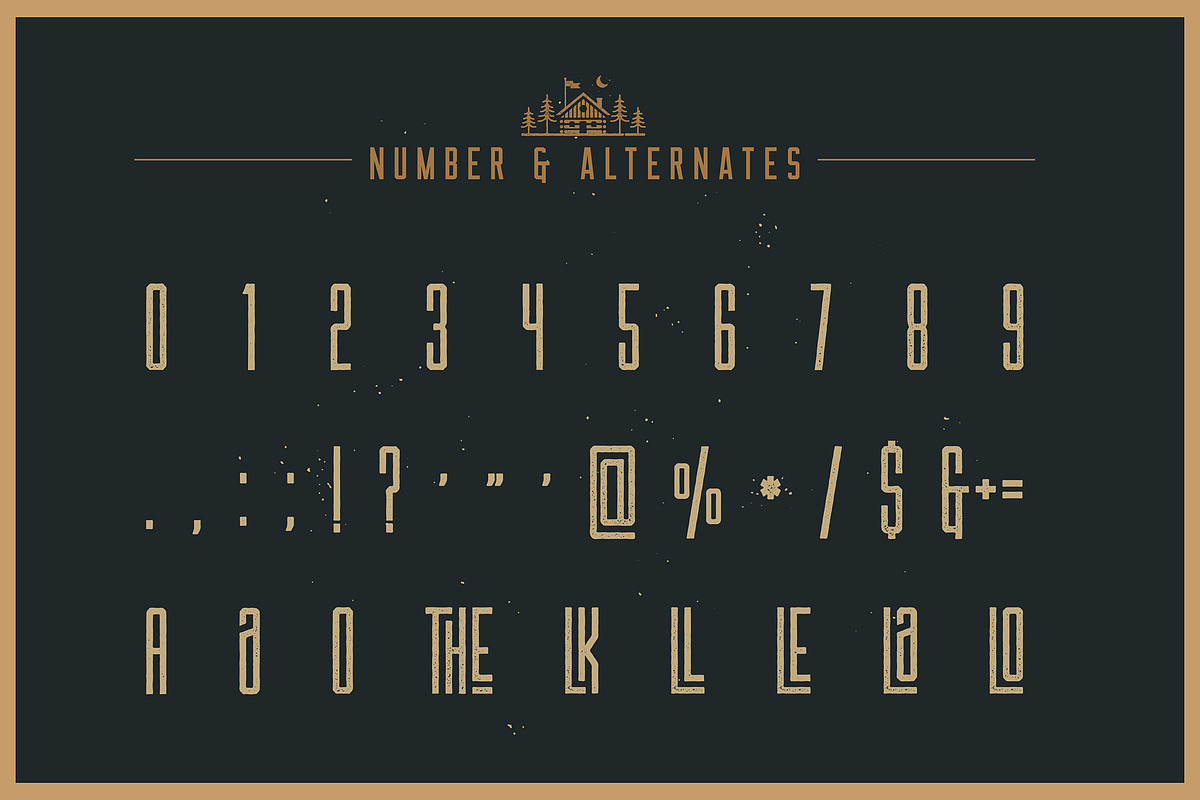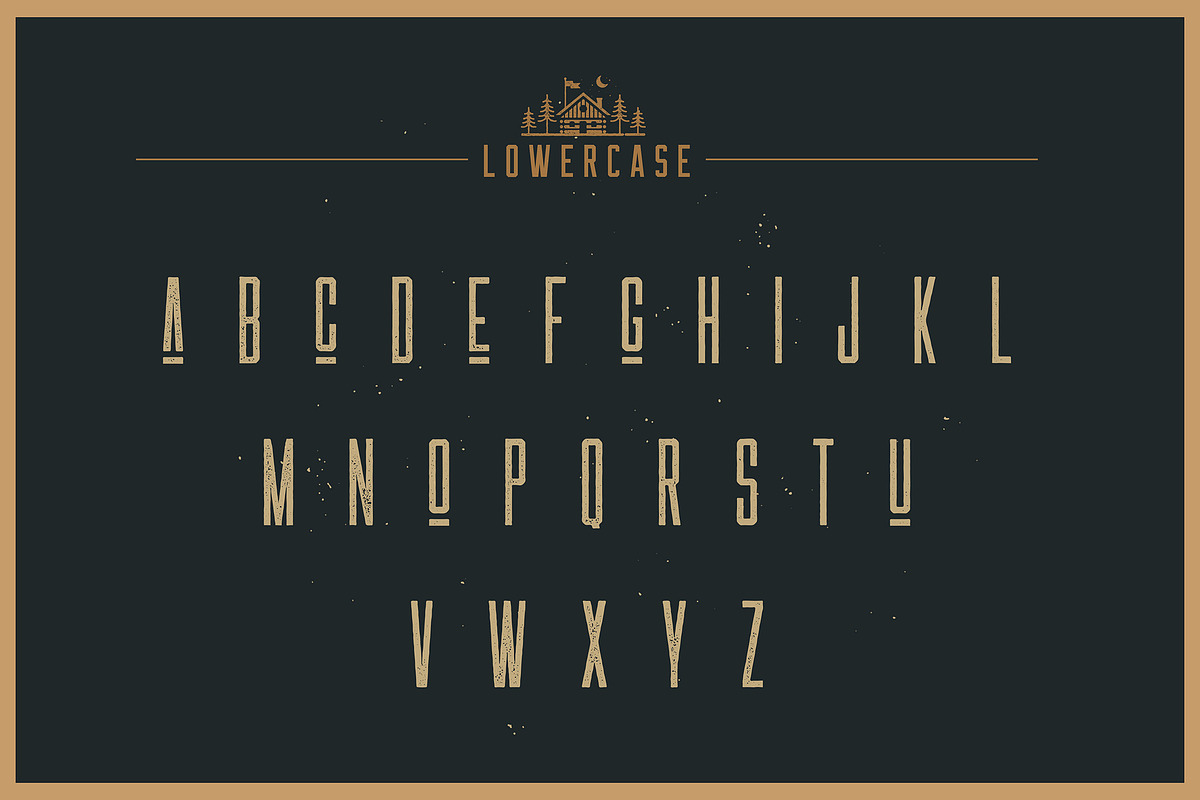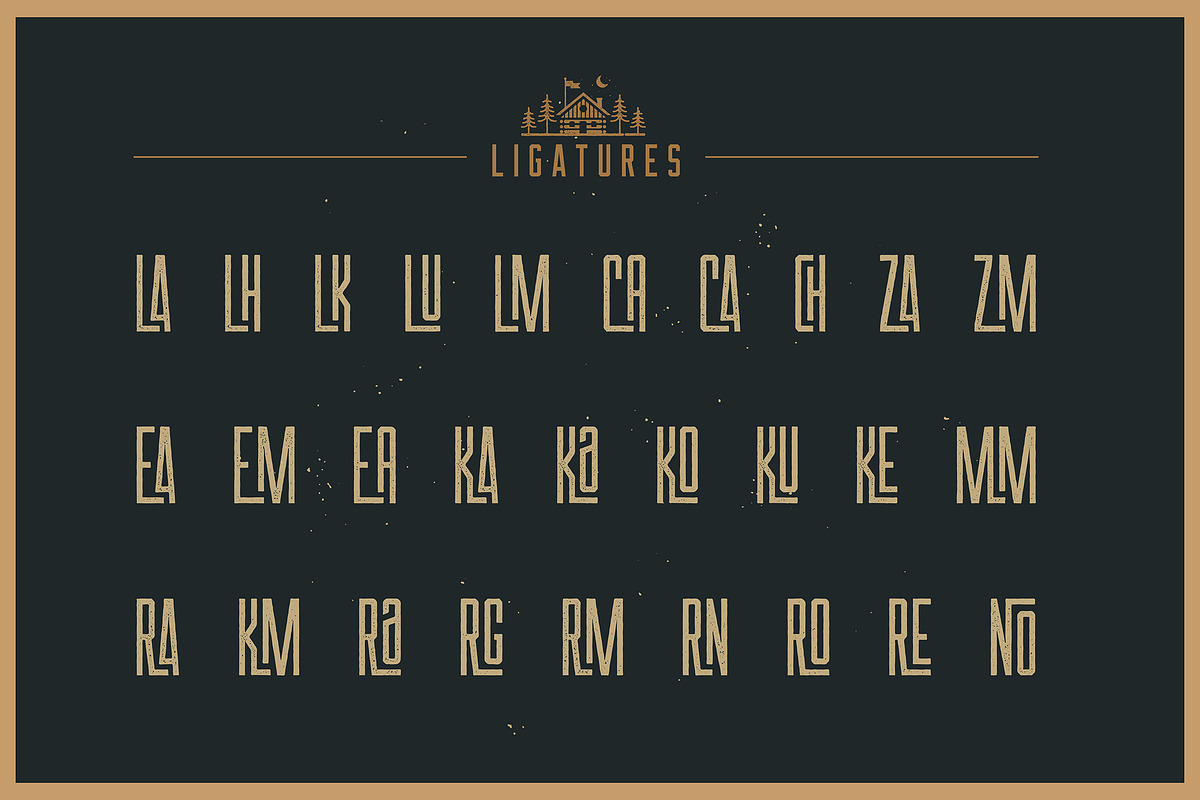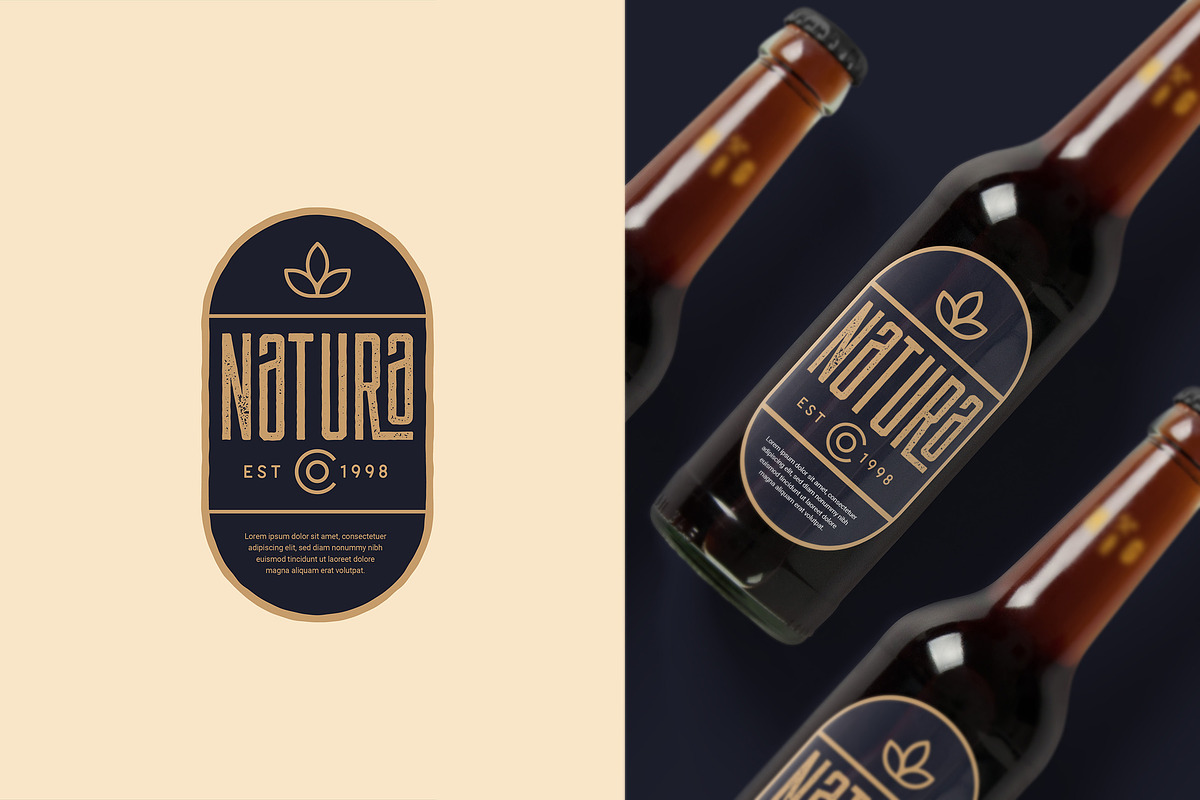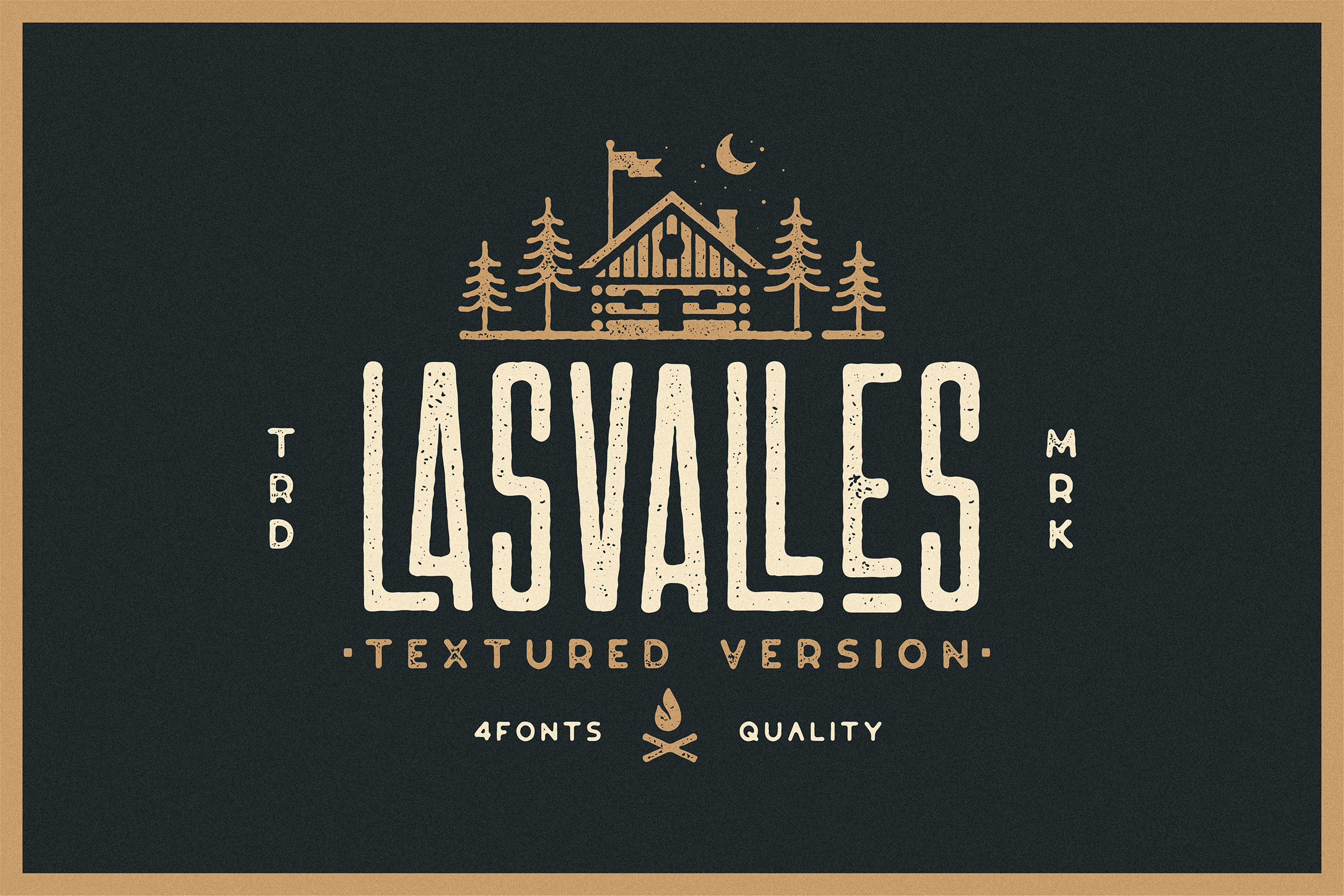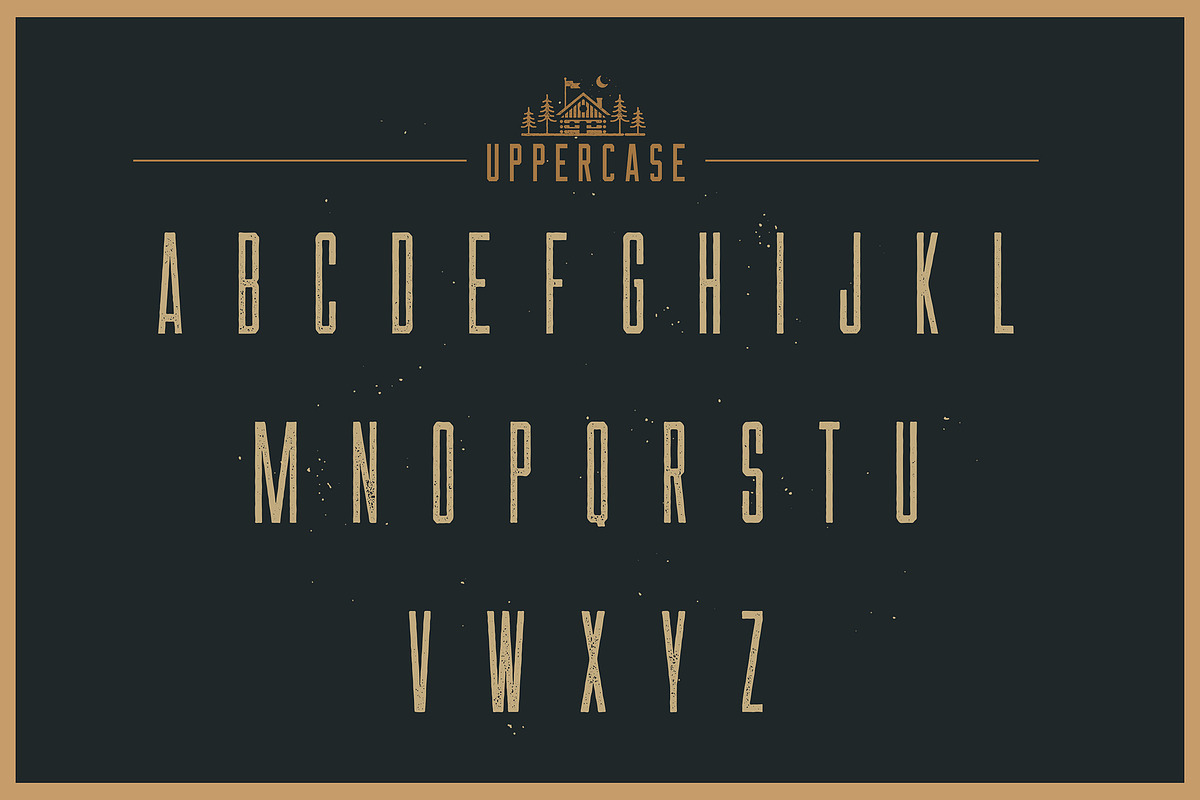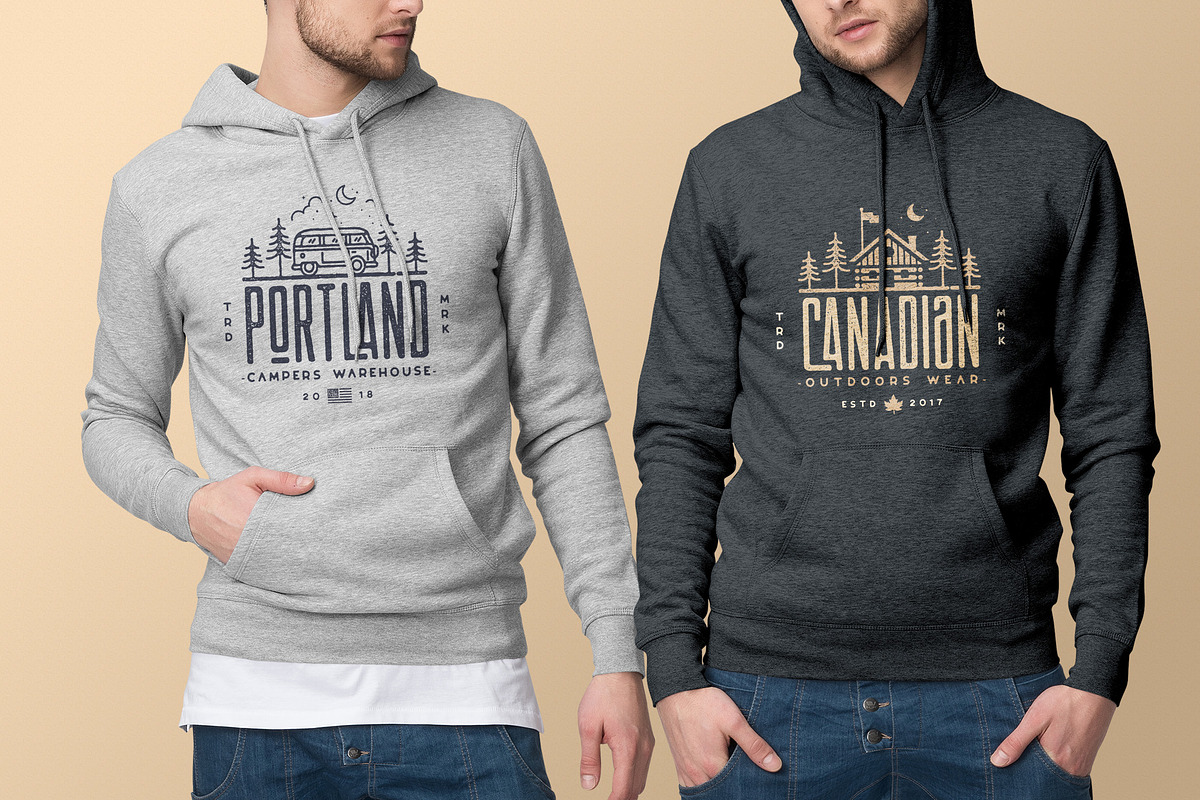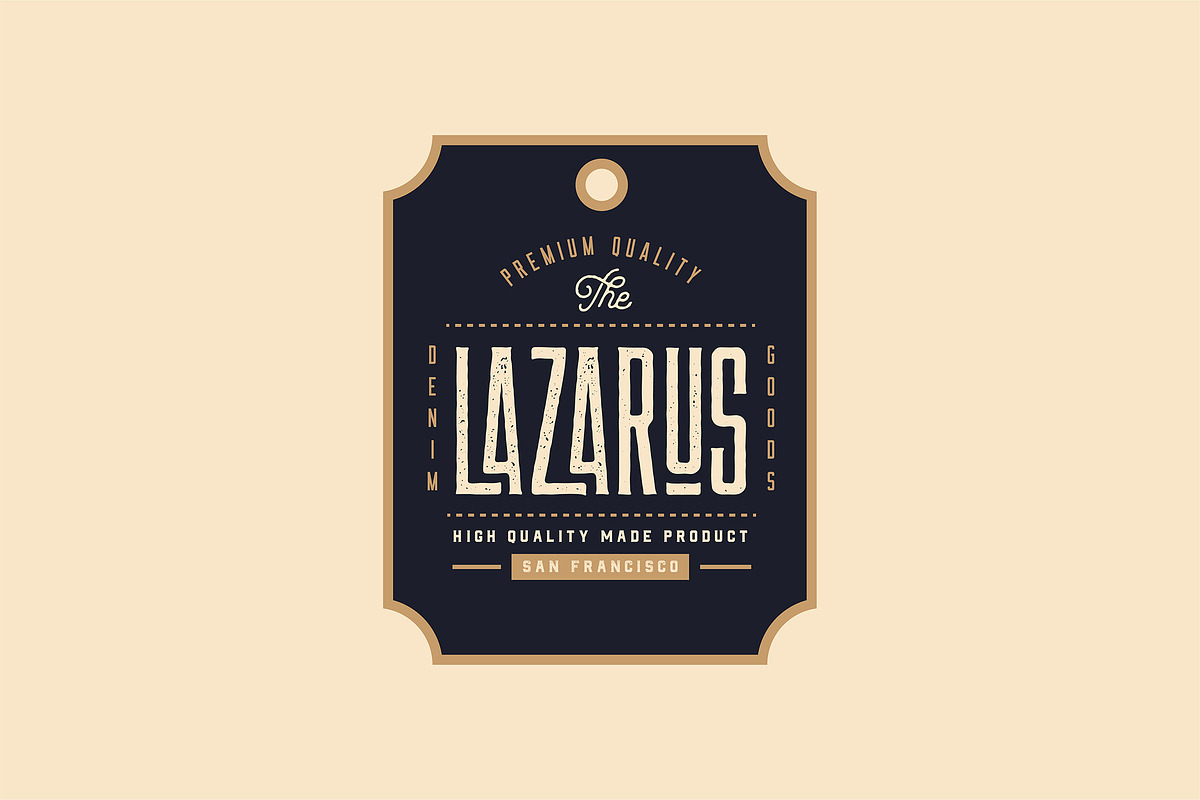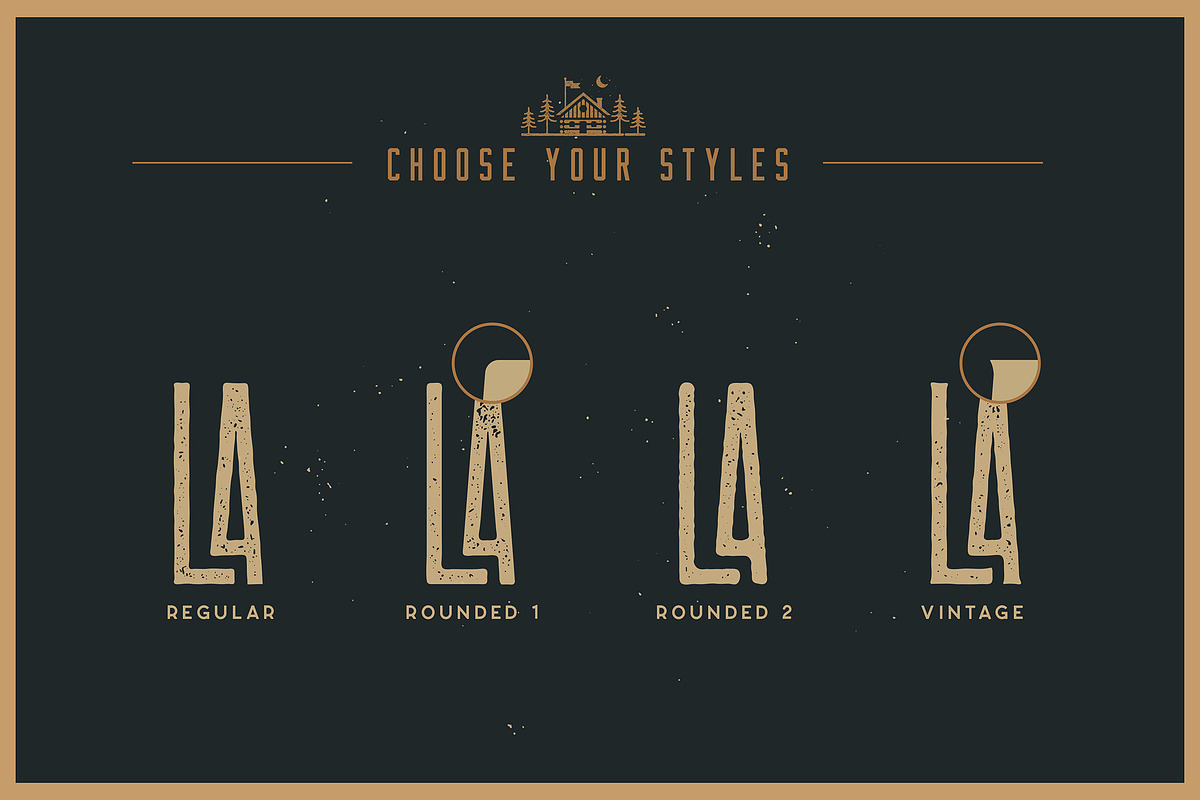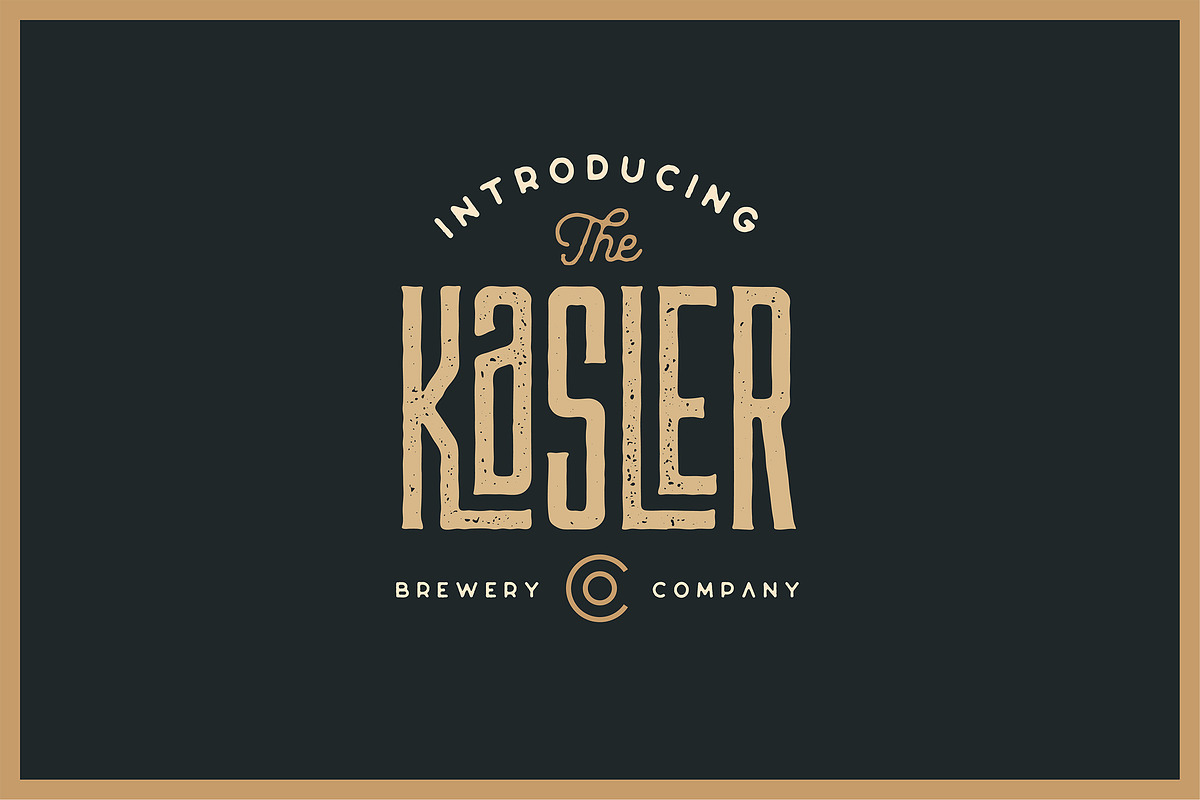
Las Valles Textured Typeface
Introducing LasValles Textured a tall Ultra condensed sans serif font coming in 4 styles. If you are looking for Strong Vintage letters with a ton of unique Ligatures and style to choose, LasValles is the perfect fit. It’s a memorable, fashionable, strong and elegant typeface. You can mix and match the rounded and the Regular style to create something very fresh and modern. Awesome right? The vintage style is the bad boy of the collection, old but still look very modern. This fonts is perfect for headlines, quotes, Logo, Web, magazine covers, editorial design, print posters, signage, window shop design, and much more.
All caps
Numerals & Punctuations
Ton of Beautiful Ligatures & Alternates